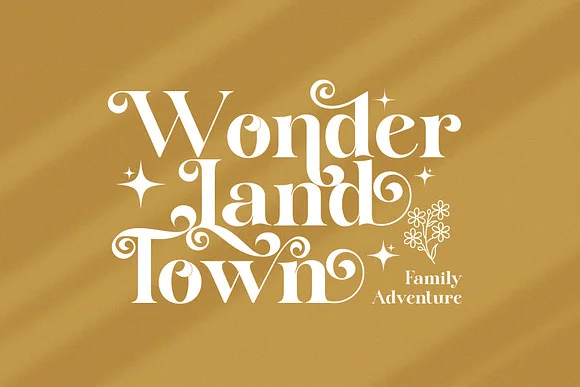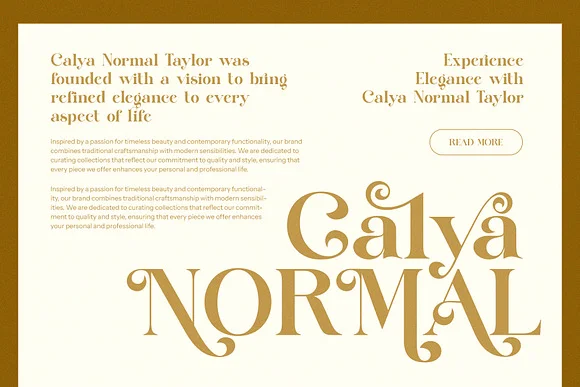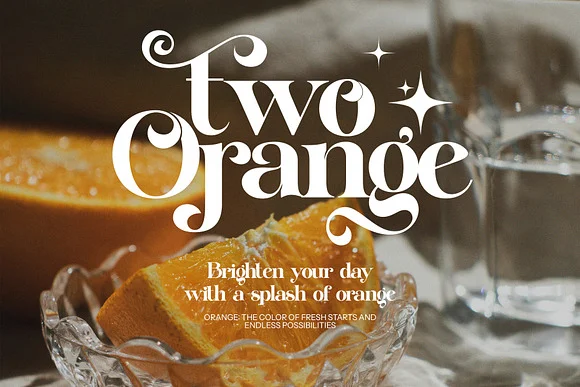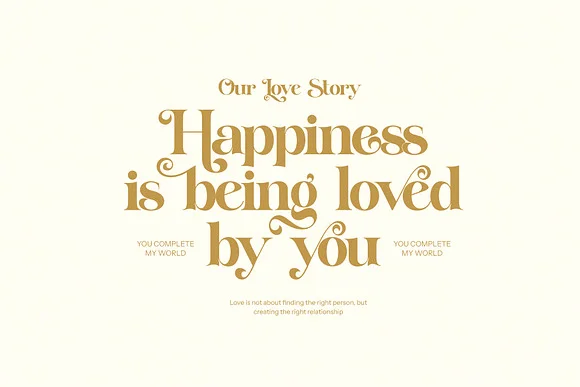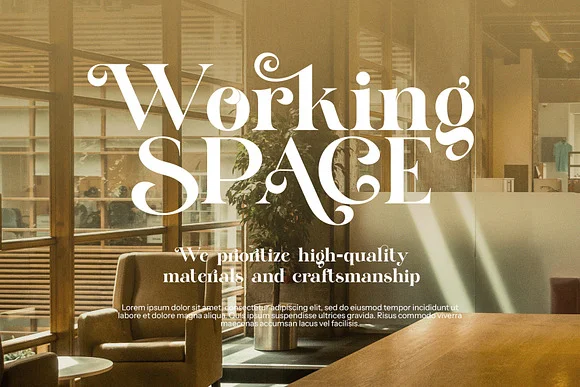
Baglin Elegant Ligature Serif Font
There is a particular satisfaction in finding a typeface that delivers optical balance across all weights without compromise. Baglin Elegant Ligature Serif consistently provides it. The typeface brings a classically grounded sensibility to a broad range of creative disciplines, with strong typographic hierarchy support that holds up whether the work is print-first or screen-first.
In practice, Baglin Elegant Ligature Serif proves particularly effective for heritage branding, brand identity systems, magazine layouts, editorial typography, signage systems. Designers reaching for it find that the type decisions feel resolved rather than laboured — a useful quality when client timelines are tight.
The range of applications extends to product labels, academic titles, web design, editorial layouts. That breadth is deliberate: the proportions and spacing were stress-tested across a wide range of mock briefs before the typeface was finalised.
Each character has been drawn with bracketed serifs and subtle optical corrections that prevent overshoot at display sizes. The contrast ratio between thick and thin strokes guarantees legibility in both print and high-resolution digital contexts.
Freelance designers across print and digital disciplines find Baglin Elegant Ligature Serif a reliable choice for projects that demand both personality and restraint. The design avoids the self-conscious quirkiness that dates quickly, settling instead for considered distinctiveness that holds up over time.